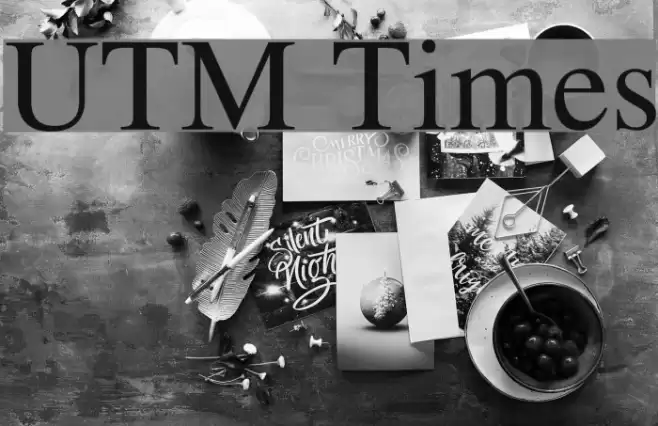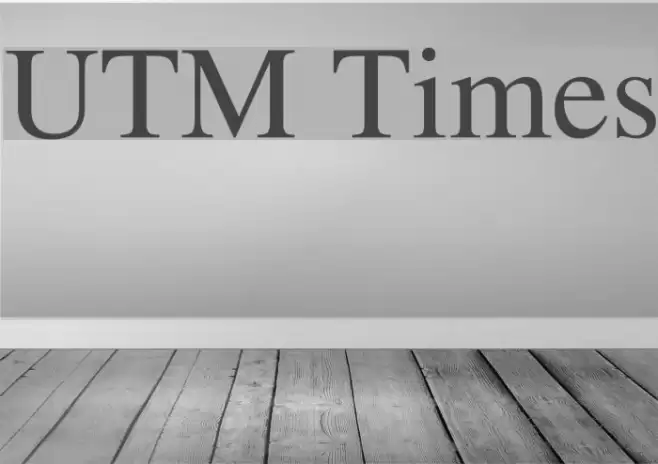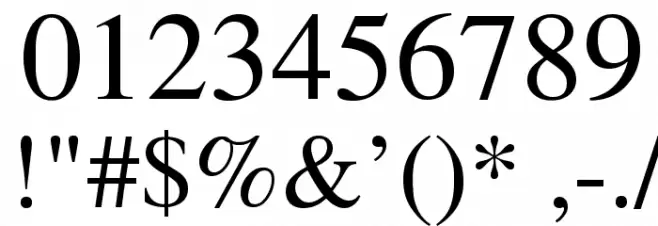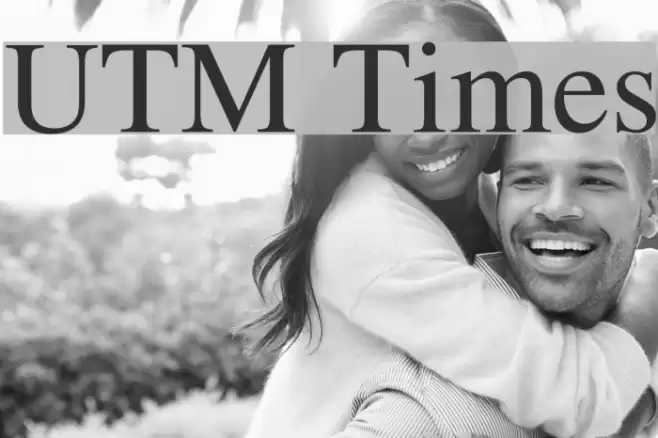
UTM Times Font
This font is a classic serif typeface known for its elegant and timeless appearance. It features distinct serifs on each character, providing a traditional and formal look. The uppercase letters are well-proportioned, with a slight contrast between thick and thin strokes, enhancing readability and sophistication. The lowercase letters maintain a consistent style, with smooth curves and balanced proportions. Numbers are clear and legible, making them suitable for various applications. Special characters are designed to complement the overall style, ensuring versatility in usage.
A classic serif typeface with elegant serifs and balanced proportions from Uncategorized fonts.
- Proposed Projects: Ideal for editorial design, book publishing, formal invitations, and corporate branding.
- Contrast: Medium
- Overall Style: Classic
- Use Case: Headlines, Body text, Logos